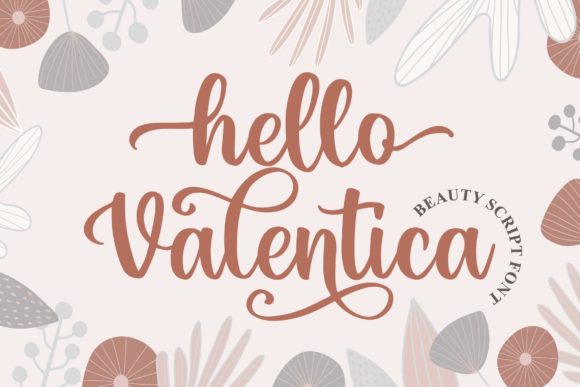
Hello Valentica Font: The Ultimate Guide to This Exquisite Handwritten Font
Hello Valentica is an exquisite handwritten font, masterfully designed to become a true favorite. It maintains its classy calligraphic influences while feeling contemporary and fresh. If you’re looking for a font that can elevate your projects to the highest levels, then Hello Valentica is the perfect choice. In this article, we’ll dive into the world of Hello Valentica, exploring its features, benefits, and uses.
Features of Hello Valentica Font
Hello Valentica is a beautifully crafted handwritten font that boasts a range of impressive features. Some of its key characteristics include:
- Classy Calligraphic Influences: Hello Valentica’s design is rooted in traditional calligraphy, giving it an air of sophistication and elegance.
- Contemporary and Fresh: Despite its classic influences, Hello Valentica feels modern and up-to-date, making it perfect for a wide range of projects.
- Handwritten Style: The font’s handwritten style gives it a personal and unique touch, setting it apart from more traditional fonts.
- Highly Versatile: Hello Valentica can be used for a variety of projects, from branding and advertising to packaging and digital media.
Benefits of Using Hello Valentica Font
So, why should you choose Hello Valentica for your next project? Here are just a few benefits of using this exquisite font:
- Adds a Touch of Elegance: Hello Valentica’s sophisticated design can add a touch of elegance to any project, making it perfect for high-end brands and luxury products.
- Stand Out from the Crowd: The font’s unique handwritten style ensures that your project will stand out from the crowd and grab attention.
- Easy to Read: Despite its elegant design, Hello Valentica is highly legible, making it perfect for use in body text and other long-form content.
- Scalable: The font is highly scalable, ensuring that it will look great in any size or format.
Uses of Hello Valentica Font
Hello Valentica is a highly versatile font that can be used for a wide range of projects. Here are some ideas to get you started:
- Branding and Advertising: Use Hello Valentica to create stunning brand identities, advertisements, and marketing materials.
- Packaging: The font’s elegant design makes it perfect for use on packaging, labels, and other product materials.
- Digital Media: Hello Valentica can be used to create engaging digital content, including social media graphics, blog posts, and website headers.
- Wedding and Event Stationery: The font’s romantic and elegant design makes it perfect for use on wedding invitations, stationery, and other event materials.
Pairing Hello Valentica with Other Fonts
To get the most out of Hello Valentica, it’s essential to pair it with other fonts that complement its style. Here are some font pairing suggestions:
- Montserrat: This modern sans-serif font pairs perfectly with Hello Valentica, creating a beautiful contrast between elegant and modern.
- Lato: This clean and elegant sans-serif font complements Hello Valentica’s handwritten style, creating a sophisticated and professional look.
- Playfair Display: This luxurious serif font pairs beautifully with Hello Valentica, adding a touch of luxury and sophistication to any project.
Tips for Using Hello Valentica Font
To get the most out of Hello Valentica, here are some tips to keep in mind:
- Use it Sparingly: Hello Valentica is a statement font, so use it sparingly to avoid overwhelming your design.
- Experiment with Sizes: The font’s scalability means that it can be used in a range of sizes, from large headings to smaller body text.
- Pay Attention to Line Spacing: To ensure that your text is easy to read, pay attention to line spacing and adjust it accordingly.
Hello Valentica is an exquisite handwritten font that can elevate any project to new heights. With its classy calligraphic influences, contemporary feel, and highly versatile design, it’s the perfect choice for anyone looking to add a touch of elegance and sophistication to their work. Whether you’re a designer, entrepreneur, or simply a creative looking for a new font to add to your arsenal, Hello Valentica is sure to become a true favorite.